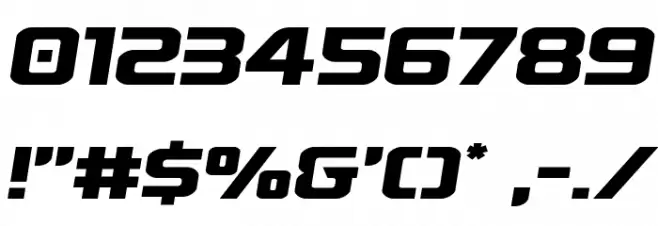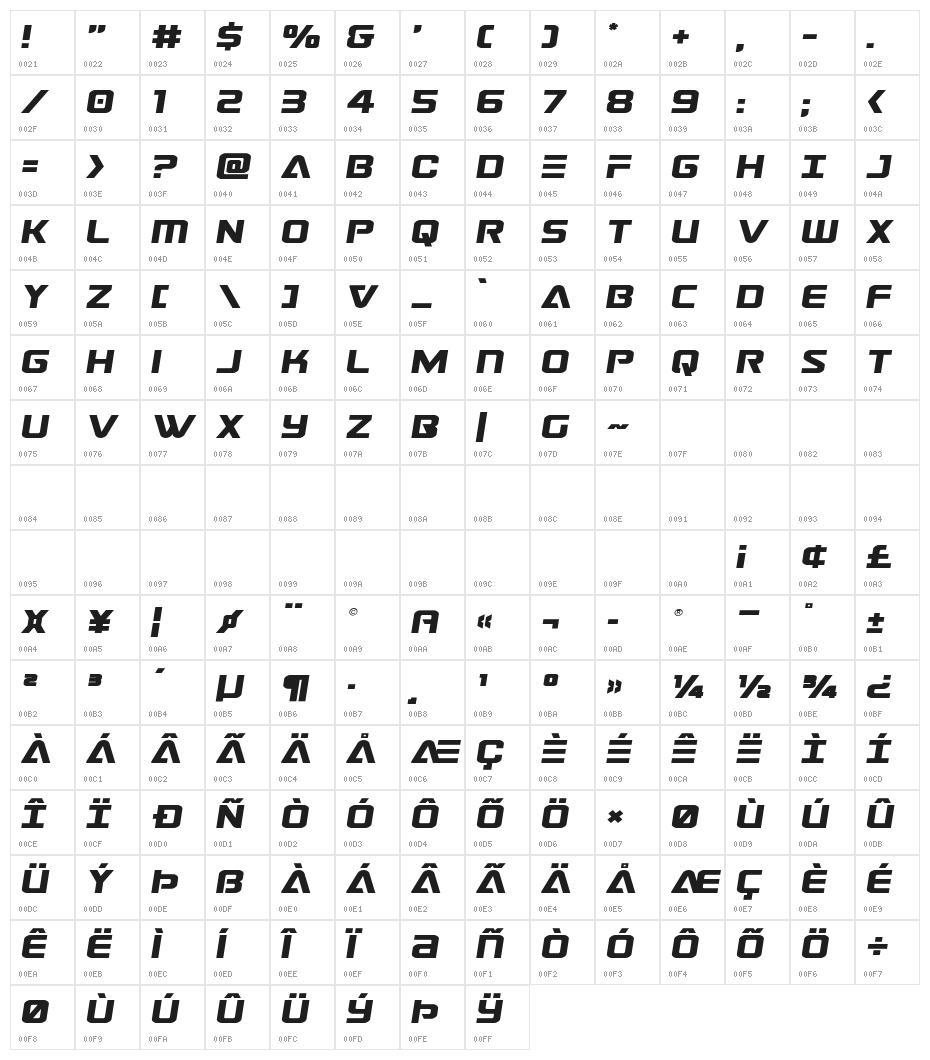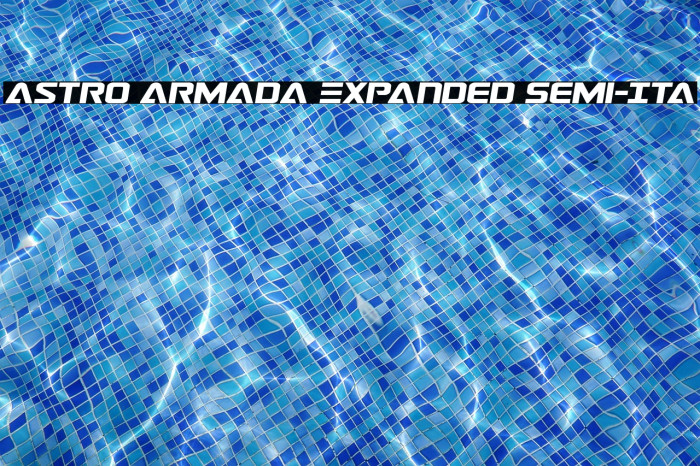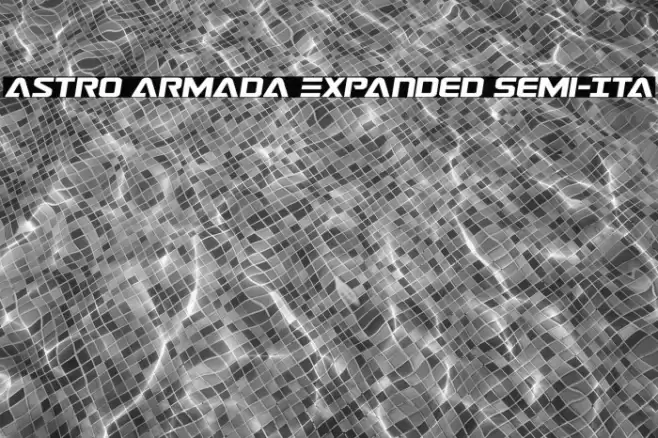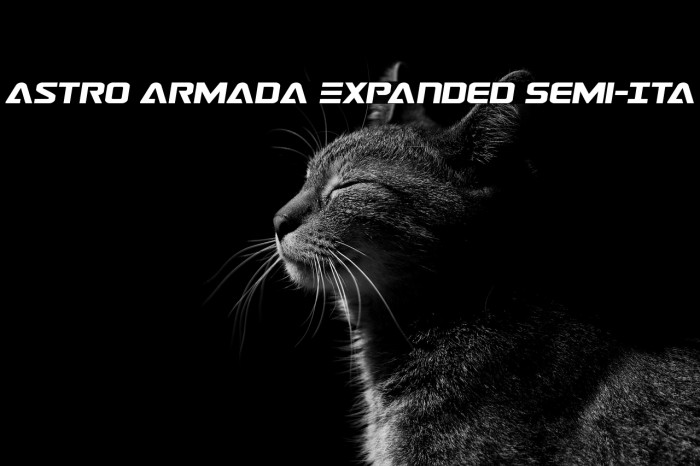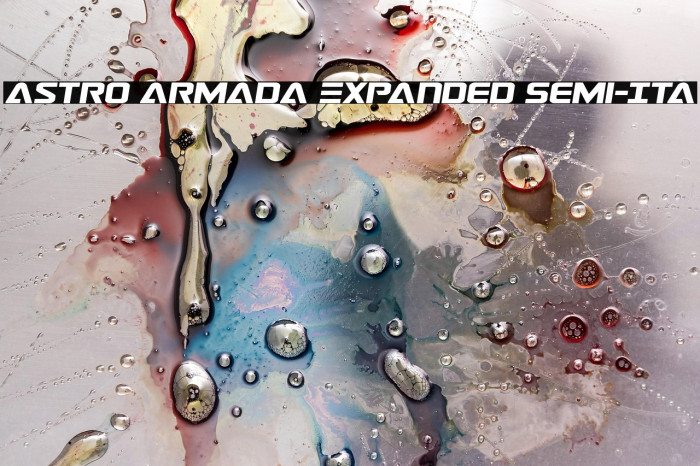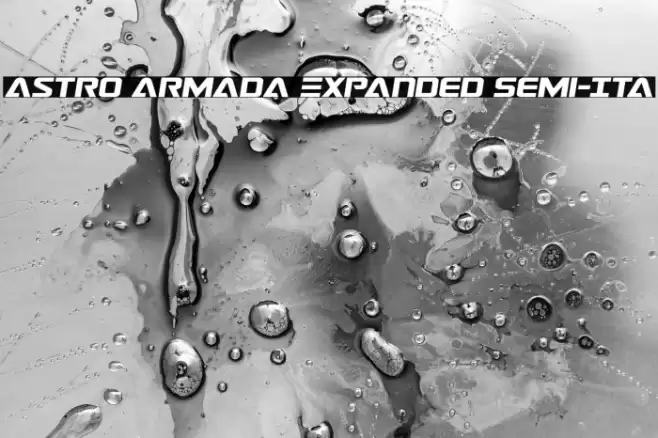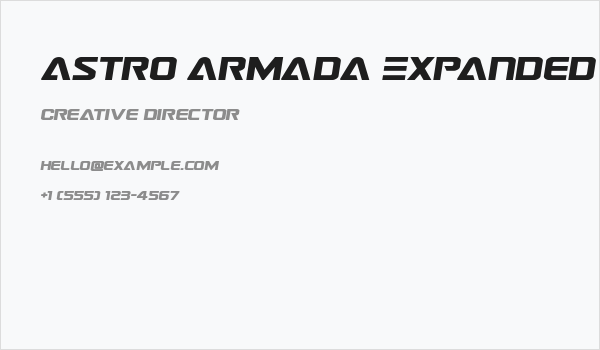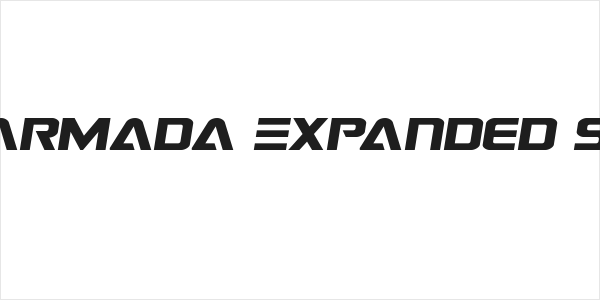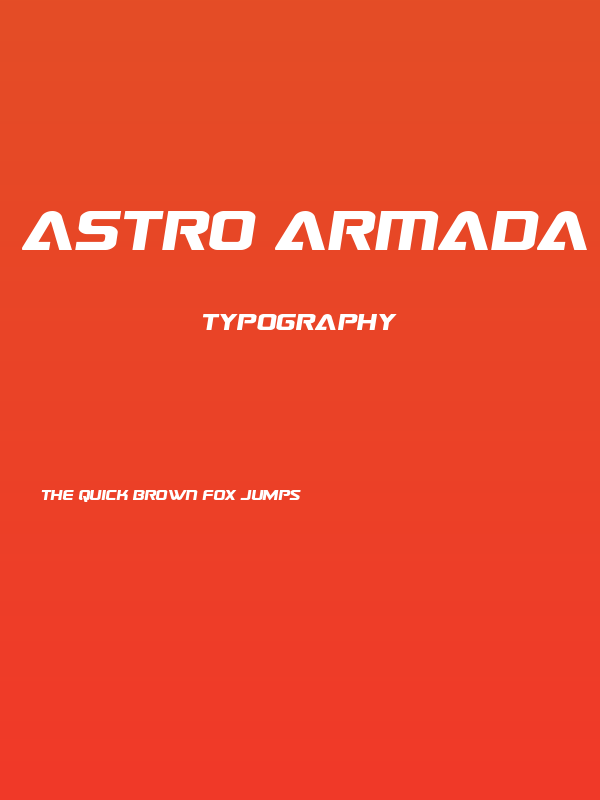
Astro Armada Expanded Semi-Ita Font
Astro Armada Expanded Semi-Ita Description
This font features a futuristic and dynamic design with a distinctly angular and geometric aesthetic. The characters are bold and expanded, giving them a strong presence on the page. The semi-italic style adds a sense of motion and speed, making it ideal for projects that require a modern and energetic feel. The uppercase letters are particularly striking, with sharp edges and a slight slant that enhances their visual impact. The numerals and special characters maintain the same bold and angular style, ensuring consistency across all text elements.